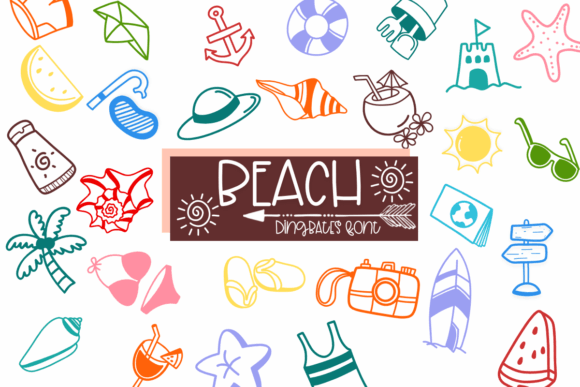
The Ultimate Beach Font Guide: Elevate Your Creative Projects with a Cool, Fun Twist
I’ll never forget the summer I spent countless hours crafting the perfect wedding invitation for a dear friend’s beach wedding. I had the design concept nailed, but something was missing – the right font. That’s when I stumbled upon the Beach Font, a game-changing dingbats font that instantly elevated my design. If you’re a designer, crafter, or creative hobbyist looking to add a cool, fun twist to your projects, you’re in the right place!
An Honest Review of Beach Font
So, what makes Beach Font so special? Let’s dive into the good stuff and a few quirks to keep in mind.
- ✅ Unique and fun design that’s perfect for beach-themed projects
- ✅ Highly versatile and can be used for various creative projects, from wedding invitations to DIY crafts
- ✅ Easy to read and understand, even in smaller font sizes
- ⚠️ Limited character set, which may not be suitable for projects requiring a wide range of characters
- ⚠️ May not be the best choice for formal or professional projects, as it has a distinctly casual and playful vibe
The Story Behind Beach Font
Beach Font was inspired by the carefree, sun-kissed vibes of a summer day at the beach. Its creator, a passionate designer with a love for typography, aimed to capture the essence of beach culture in a unique and fun dingbats font. The result is a font that’s perfect for designers, crafters, and creative hobbyists looking to add a cool, fun twist to their projects.
| Q: What type of projects is Beach Font best suited for? | Beach Font is perfect for beach-themed projects, such as wedding invitations, DIY crafts, decorations, logos, and more. |